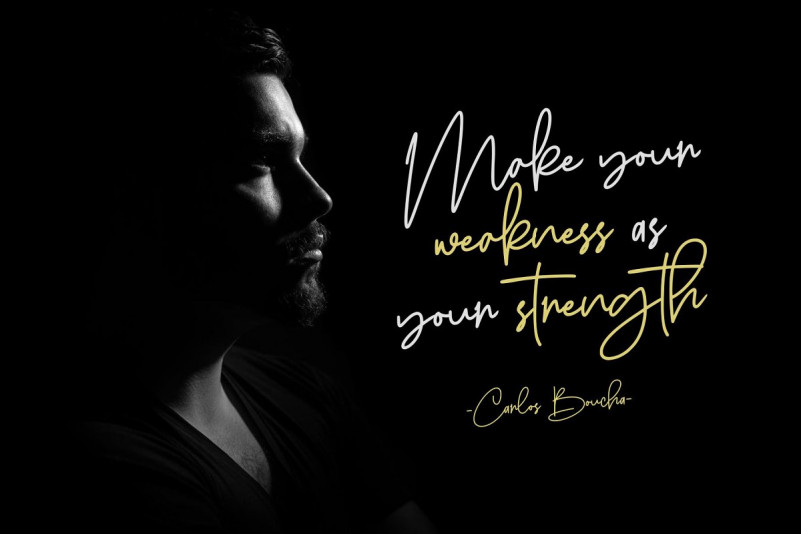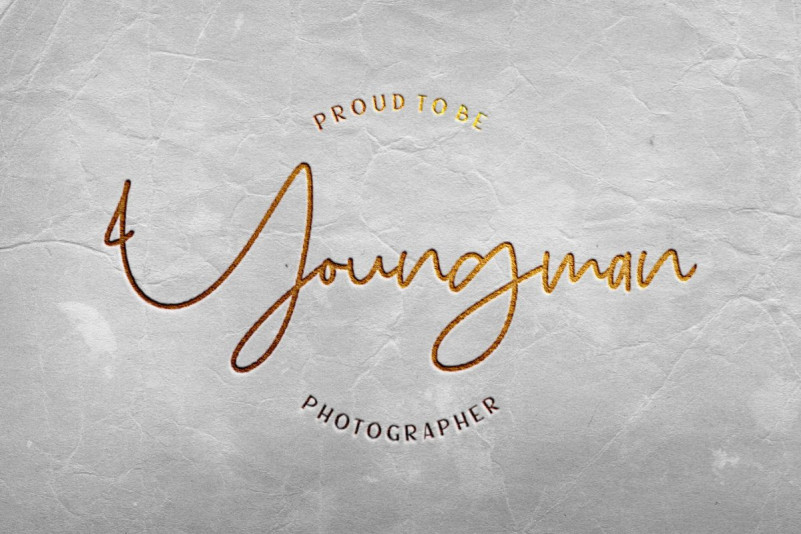
Sanpaullo Signature Font
Sanpaullo Signature Demo Font
A elegant signature script type by Garisman Std. It comes with an elegant and feminine style which is perfect to make any design stand out! Introducing Sanpaullo Signature Font. Sanpaullo is a natural signature font, this font Is perfect for logo, invitation, stationery, wedding designs, social media posts, advertisements, product packaging, product designs, label, photography, watermark, special events or anything.
Sanpaullo comes with full set of uppercase and lowercase letters, multilingual symbols, numerals, punctuation.